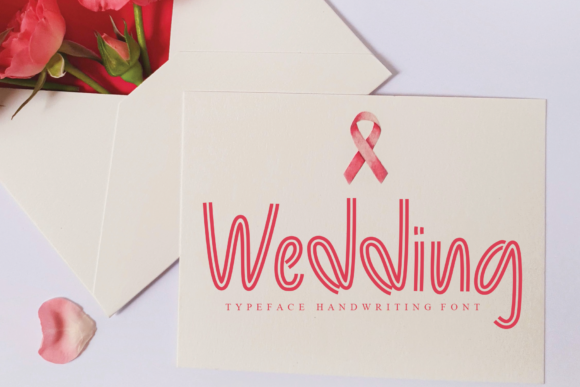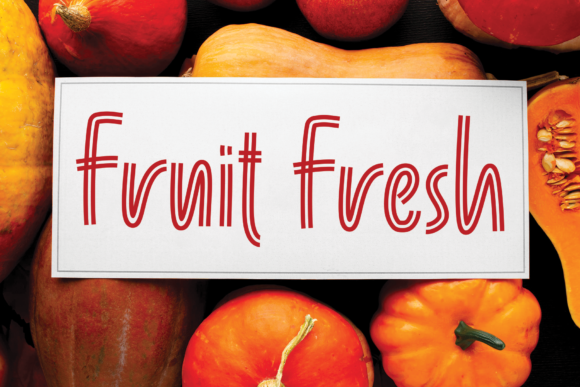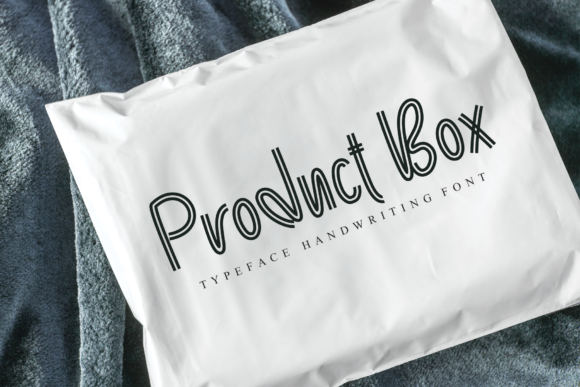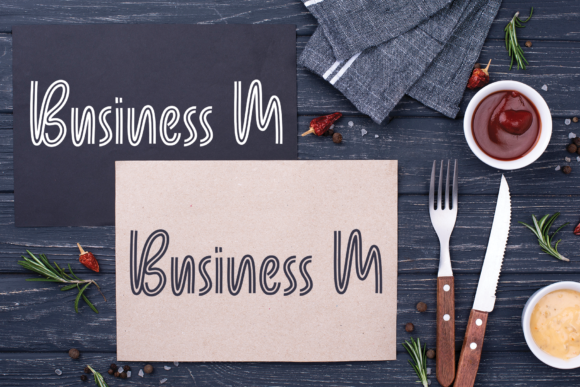
Bullena Font: Unleash Your Creativity with this Unique Display Font
Bullena Font is a fun and incredibly unique display font that is perfect for any informal design project. With its playful and eye-catching style, it’s ideal for designers and crafters who want to add a touch of personality to their work. In this article, we’ll take a closer look at the Bullena Font, its features, and how you can use it to unleash your creativity and take your designs to the next level.
What is Bullena Font?
Bullena Font is a display font that is designed to make a statement. Its unique and quirky style makes it perfect for informal designs, such as posters, flyers, brochures, and social media graphics. The font is characterized by its bold and playful letters, which are sure to grab attention and leave a lasting impression.
Key Features of Bullena Font
- Unique and Quirky Style: Bullena Font has a one-of-a-kind style that sets it apart from other fonts. Its playful letters are designed to add a touch of fun and personality to your designs.
- Bold and Eye-Catching: The font is bold and eye-catching, making it perfect for headlines, titles, and other design elements that need to stand out.
- Informal and Playful: Bullena Font is ideal for informal designs, such as party invitations, social media graphics, and posters.
- Highly Versatile: The font can be used for a wide range of design projects, from digital graphics to print materials.
How to Use Bullena Font in Your Designs
Bullena Font is incredibly easy to use, and can be incorporated into your designs in a variety of ways. Here are a few ideas to get you started:
- Headlines and Titles: Use Bullena Font to create bold and eye-catching headlines and titles that grab attention and set the tone for your design.
- Social Media Graphics: Use the font to create fun and engaging social media graphics, such as Facebook posts, Instagram stories, and Twitter headers.
- Posters and Flyers: Bullena Font is perfect for creating eye-catching posters and flyers that advertise events, products, or services.
- Branding and Packaging: Use the font to create unique and memorable branding and packaging designs that stand out from the crowd.
Tips and Tricks for Working with Bullena Font
Here are a few tips and tricks to help you get the most out of Bullena Font:
- Experiment with Colors: Bullena Font looks great in a variety of colors, so don’t be afraid to experiment and find the perfect color scheme for your design.
- Play with Texture and Patterns: Add texture and patterns to your design to give it an extra layer of depth and interest.
- Use it Sparingly: While Bullena Font is bold and eye-catching, it can be overwhelming if used too much. Use it sparingly to create a focal point in your design.
Bullena Font is a fun and incredibly unique display font that is perfect for any informal design project. With its bold and playful style, it’s ideal for designers and crafters who want to add a touch of personality to their work. Whether you’re creating social media graphics, posters, or branding designs, Bullena Font is sure to make a statement and leave a lasting impression. So why not let your imagination run free and try Bullena Font today?